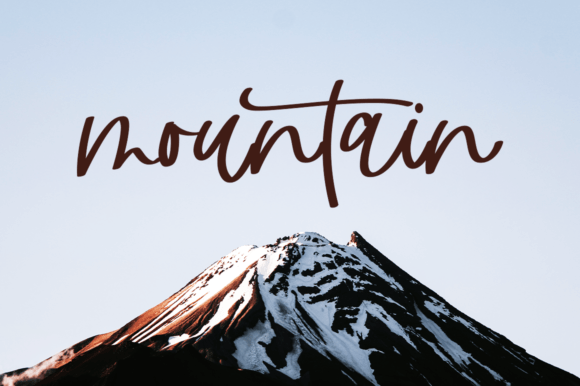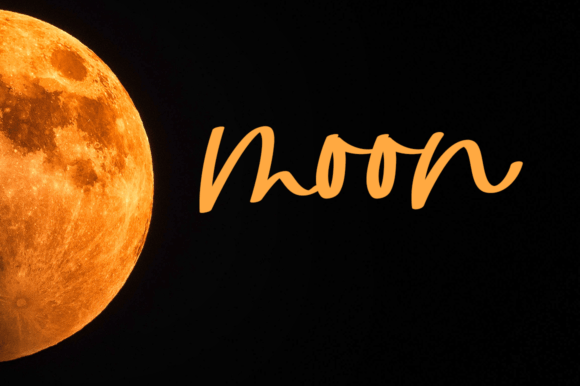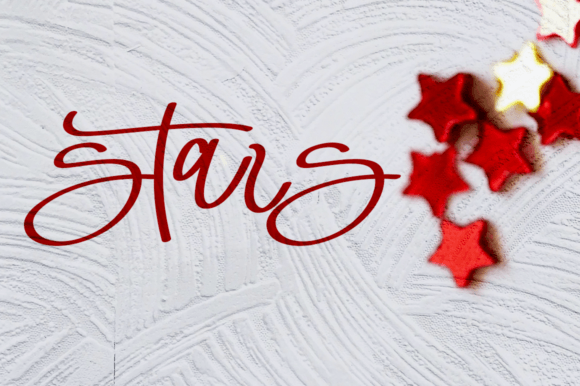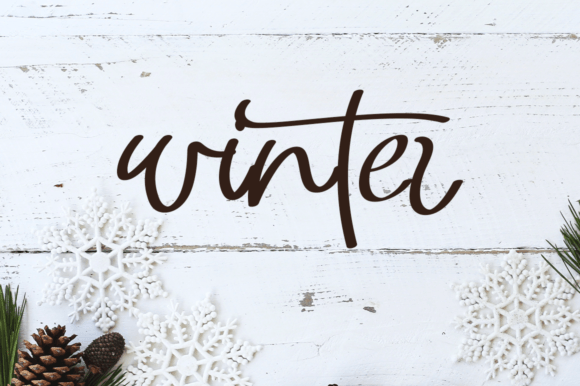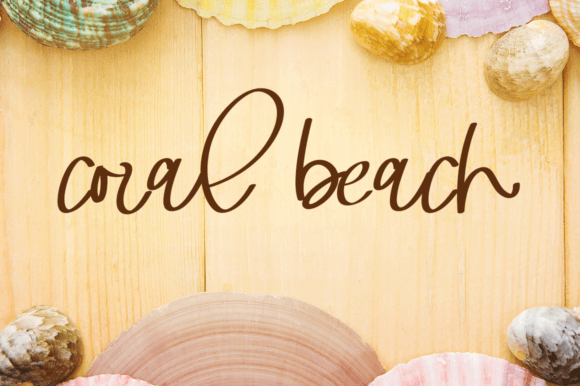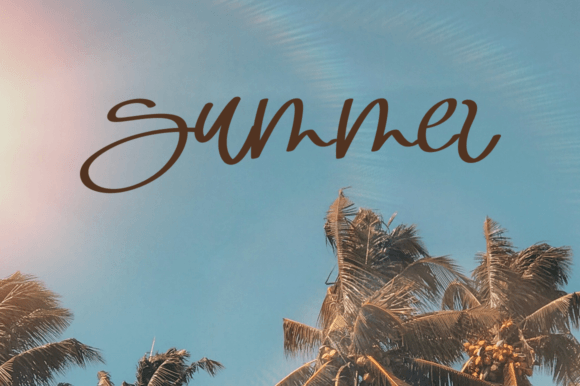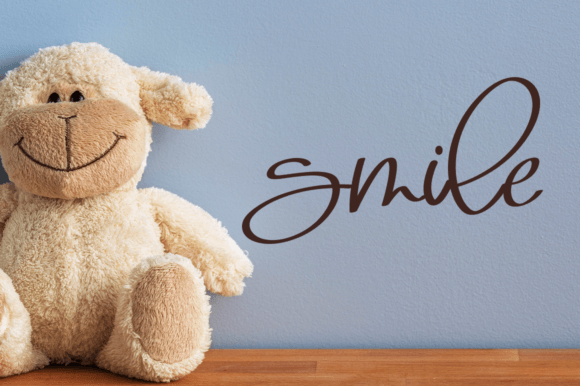
Grey Font
About Grey Font
Introducing Grey, an elegant, simple, and attractive handwritten font designed to bring a beautiful and interesting character to your creative projects. This font is versatile and suitable for various applications, making it ideal for art, wall painting, party invitations, and anything created in a random and freestyle manner. Grey is PUA encoded, allowing easy access to all glyphs and swashes for a seamless creative experience.
The key features of Grey include its elegant and simple design, which makes it visually appealing and versatile across different design contexts. The font’s interesting character adds a touch of creativity and uniqueness to your projects.
For art projects, Grey becomes a stylish choice. Its handwritten style brings an authentic and freestyle vibe, making it suitable for creating visually interesting and expressive art pieces.
In wall painting and decor, Grey adds an elegant and attractive touch. The font’s simplicity and interesting character enhance the overall aesthetic, creating a visually appealing and personalized atmosphere.
For party invitations, Grey stands out with its unique charm. The handwritten style contributes to a warm and inviting feel, making it an excellent choice for conveying a friendly and creative vibe.
In conclusion, Grey is an elegant and attractive handwritten font perfect for art, wall painting, party invitations, and more. Choose Grey to infuse your designs with simplicity, creativity, and an interesting character, creating visually appealing and personalized outcomes across a variety of creative applications.